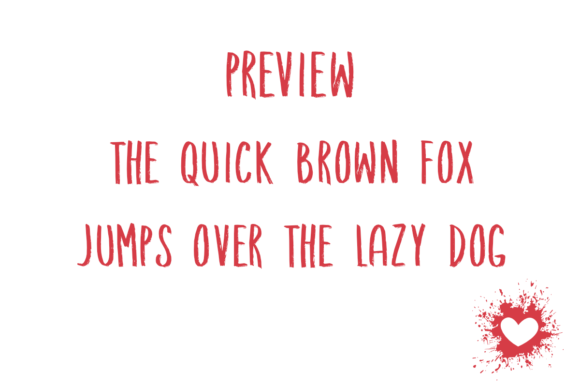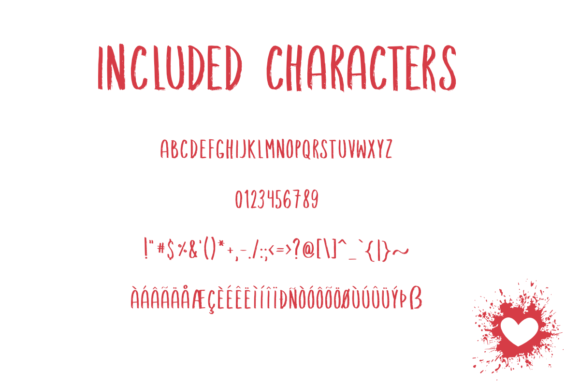
Painted Letters Font
Painted Letters Font is a free, unique, and cool font. This font is FREE to Download and suitable for designs such as t-shirts, sportswear, posters, logos, advertisements, clothing, and more.
Painted Letters Font is a free, unique, and cool font. This font is FREE to Download and suitable for designs such as t-shirts, sportswear, posters, logos, advertisements, clothing, and more. Whatever the topic, this font will be a great asset to your font collection, as it has the potential to enhance any creation.